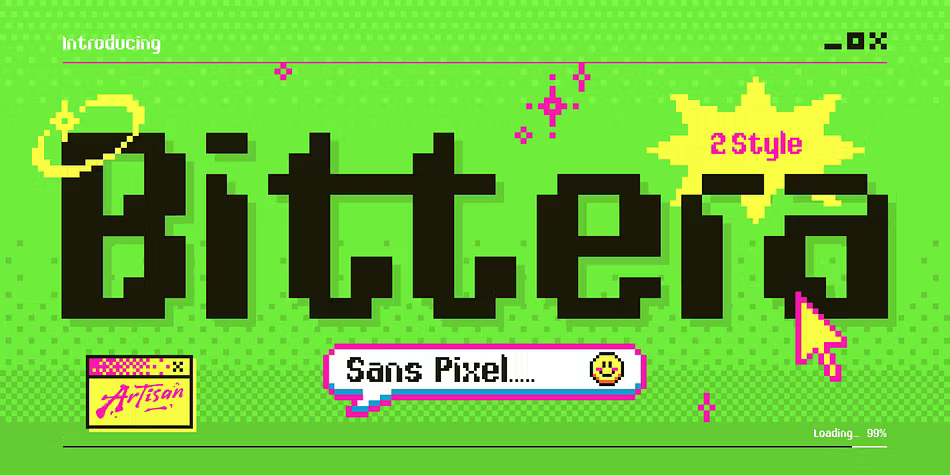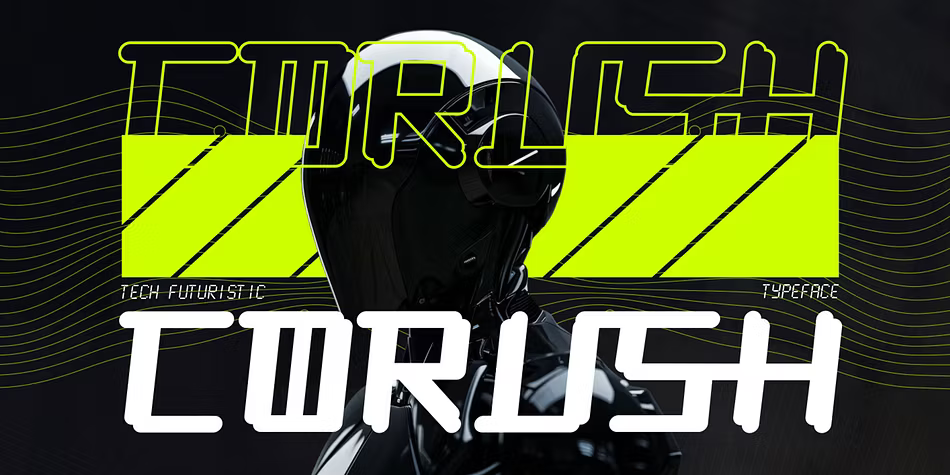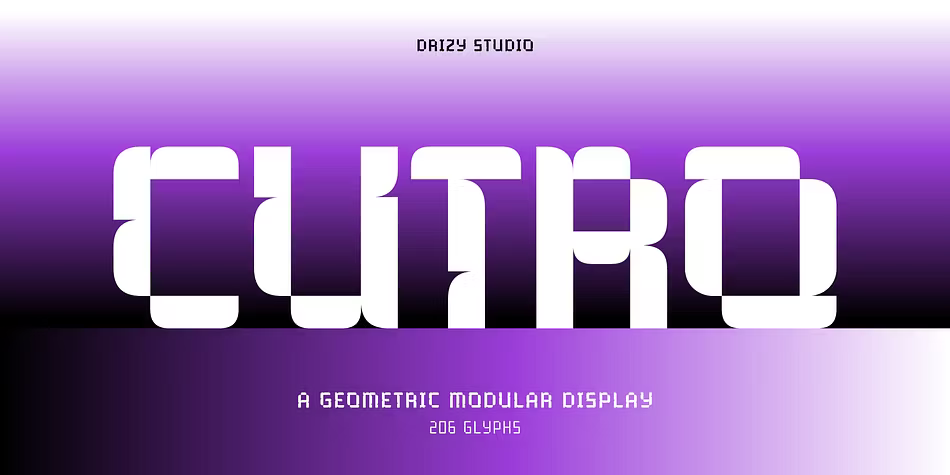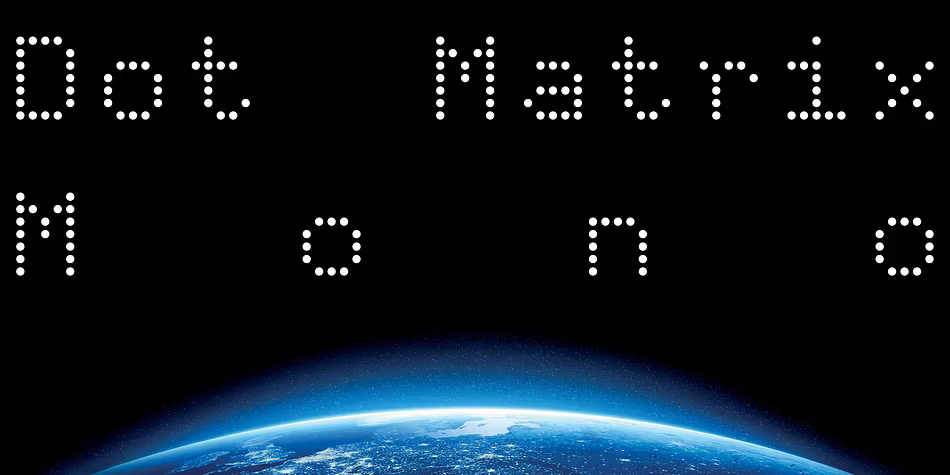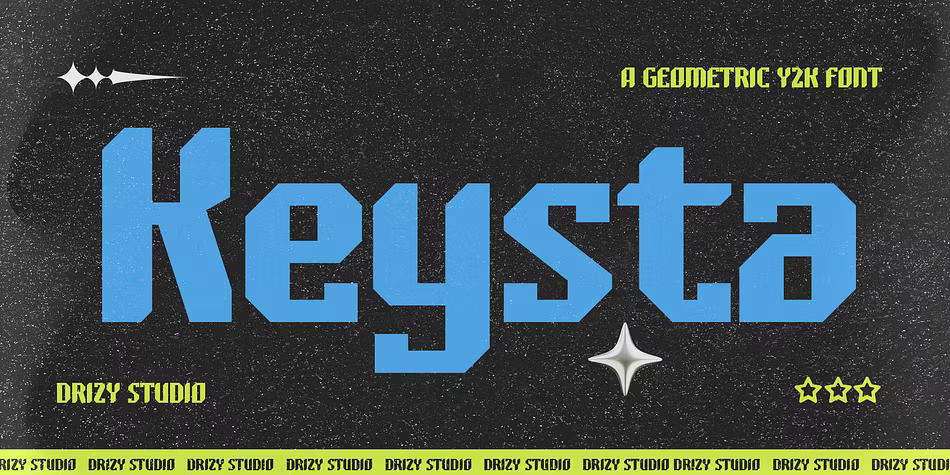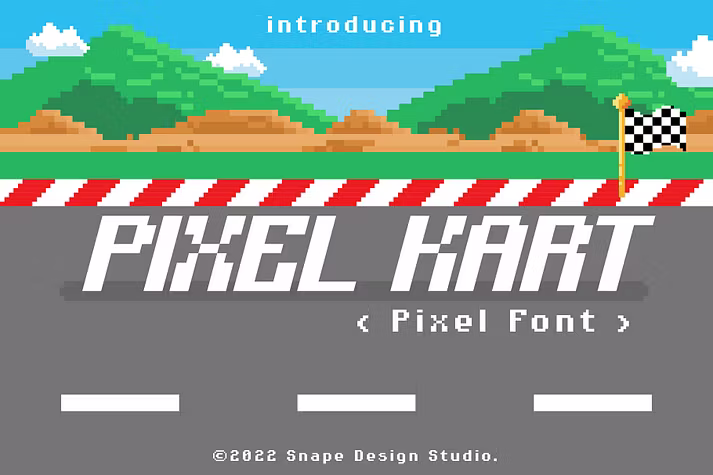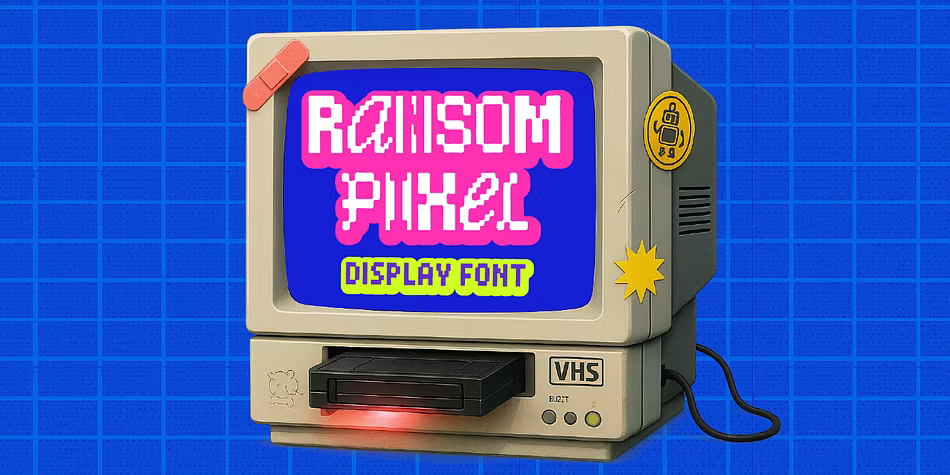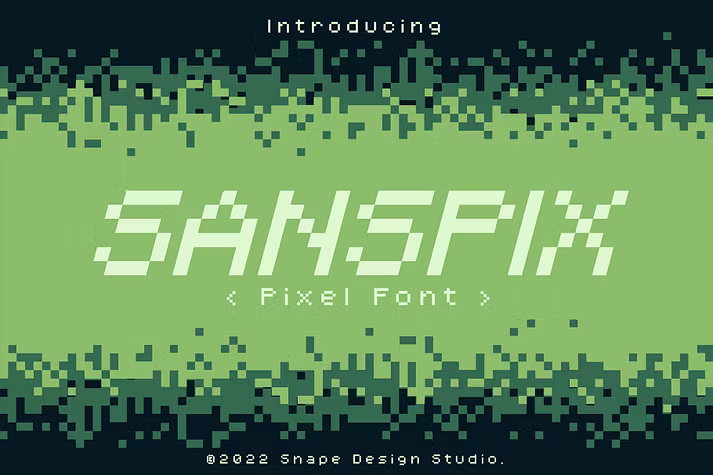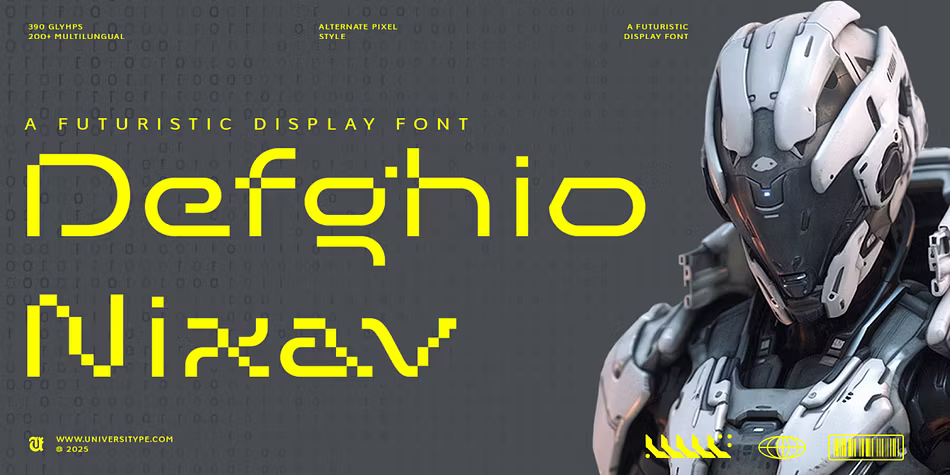
Welcome to the vibrant world of pixel fonts! This collection features a variety of fonts that celebrate the retro aesthetic while offering versatility for modern designs. From the nostalgic charm of Sanspix and Pixel Kart to the contemporary flair of Dot Matrix Mono VP and Corush, each font brings its unique character to your projects. Whether you are designing for games, branding, or editorial layouts, these fonts will help you capture attention and evoke emotion. Explore the possibilities with Pixmon Round, Keysta, Bittera, Cutro, Ransom Pixel, and UT Defghio Nixav, each offering distinct styles and functionalities. Dive into this font collection and elevate your designs with the power of pixel perfection!
Sanspix
Sanspix is a captivating retro pixel font that evokes nostalgia, making it an ideal choice for retro game designs. Its unique aesthetic captures the essence of vintage gaming while remaining versatile enough for a wide range of applications, including movie titles, documentaries, logos, posters, and book covers. The font's standout characteristics will elevate your creative projects, ensuring they grab attention. With both OTF and TTF formats available, integrating Sanspix into your designs is seamless. Embrace this font to enhance your creative ideas and watch them come to life.
Dot Matrix Mono VP
Dot Matrix Mono VP reimagines the aesthetics of early dot matrix displays, blending them into a contemporary design that is both functional and visually appealing. Built on a rational monospaced structure, this font features a modular grid of dots, where each character shares a consistent width, resulting in clarity and rhythm. The design captures the essence of retro technology while maintaining a modern flair, making it an excellent choice for branding, editorial projects, and digital designs. The family includes six styles—Light, Regular, Bold, Double, Triple, and Bubble—allowing for versatility and expressive typography. With support for over 200 languages, Dot Matrix Mono is perfect for projects that require precision and a touch of nostalgia.
Pixmon Round
Pixmon Round is a unique subfamily within the Pixmon type system, designed to offer an experimental and modular display font that is both friendly and striking. With its rounded pixel-based shapes, this font is perfect for a variety of applications, including posters, game titles, editorial layouts, and creative branding. Its clean structure and bold personality ensure a strong visual impact, allowing it to stand out in any design context. Embrace Pixmon Round to add a playful yet modern touch to your projects, capturing attention effortlessly.
Keysta
Keysta is an innovative Y2K geometric font that captures the boldness and futuristic aesthetics of early 2000s design. With its clean geometric forms and sleek curves, this typeface is perfect for a variety of applications from logos to apparel and digital designs. Keysta effortlessly combines playfulness with an edgy vibe, making it a great choice for projects that aim to make a statement. The font includes uppercase and lowercase letters, punctuation, numbers, and multilingual support, ensuring versatility in your designs. Explore new creative possibilities with Keysta and elevate your projects to a modern-retro style.
Pixel Kart
Pixel Kart is a vibrant pixel font that embodies the spirit of retro gaming, making it ideal for various creative projects. Its playful design is perfect for game titles, posters, logos, and other media that require a nostalgic touch. With its distinct character set, Pixel Kart ensures that your designs stand out while capturing the essence of classic arcade aesthetics. The font is available in both OTF and TTF formats, making it easy to integrate into your favorite design software. Let Pixel Kart bring retro charm to your projects and connect with audiences on a nostalgic level.
Corush
Corush is a modern, tech-inspired font designed for innovators and digital creators who want to convey a sense of cutting-edge design. With its geometric forms and sleek lines, Corush captures the essence of cyberpunk aesthetics, making it perfect for branding, gaming interfaces, and sci-fi projects. The font features a balanced structure, allowing it to be both bold and elegant, while offering a range of stylistic alternates for creative flexibility. With comprehensive multilingual support and a character set designed for versatility, Corush is ideal for projects seeking a high-tech, futuristic vibe without sacrificing readability.
Bittera
Bittera is your go-to pixel-perfect font that captures the nostalgia of retro 8-bit gaming while adding a contemporary twist. Available in two fun styles—Regular for a classic look and Rounded for a softer vibe—Bittera is perfect for game titles, pixel art, and engaging YouTube thumbnails. Its playful design adds a layer of charm to any project that seeks to evoke the magic of arcade gaming. With a comprehensive character set including uppercase and lowercase letters, numbers, and ligatures, Bittera is ready to power up your designs and take them to the next level.
Cutro
Cutro is a bold geometric modular display font that showcases symmetry and structure, designed to make a statement in any design project. Its expansive character forms, crafted from modular shapes, result in a distinctive and futuristic look. Ideal for logos, posters, and tech branding, Cutro commands attention with its wide stance and clean construction. The font supports multilingual characters, ensuring accessibility across various languages. With variable options from Thin to Bold, Cutro is versatile for digital interfaces and print designs alike. Embrace Cutro to elevate your creative projects with its modern aesthetic.
Ransom Pixel
Ransom Pixel is a dynamic display typeface that harnesses the spirit of retro gaming with a bold ransom-note aesthetic. Offering four pixel-styled cuts, this font provides designers with ample flexibility to create contrasting typography that stands out. Ideal for gaming events, indie titles, or nostalgic merchandise, Ransom Pixel combines digital nostalgia with a modern twist. With complete lowercase and uppercase letters, numerals, symbols, and alternate characters, this font is multilingual and PUA encoded for easy access. Ransom Pixel is the perfect choice for designers looking to infuse a playful yet edgy vibe into their projects.
UT Defghio Nixav
UT Defghio Nixav is a groundbreaking display font that merges cutting-edge design with futuristic elements, making it perfect for any project that seeks to push the boundaries of creativity. Its unique geometric structure and crisp, angular shapes create a striking visual impact that is both modern and captivating. With an expansive character set and support for over 390 glyphs, this font is ideal for tech branding, sci-fi themes, and digital art. UT Defghio Nixav also includes alternate pixel styles that lend a retro-futuristic twist, ensuring it stands out in any design context. Elevate your projects with this innovative font that embodies the spirit of tomorrow.